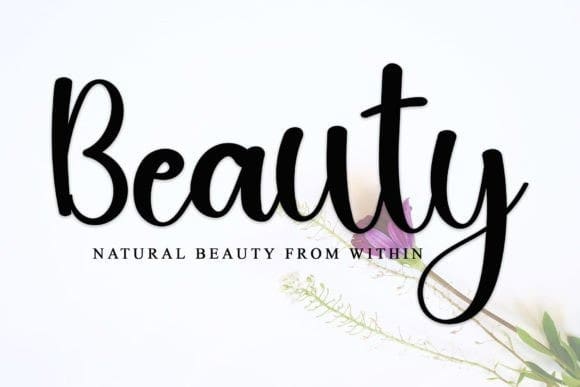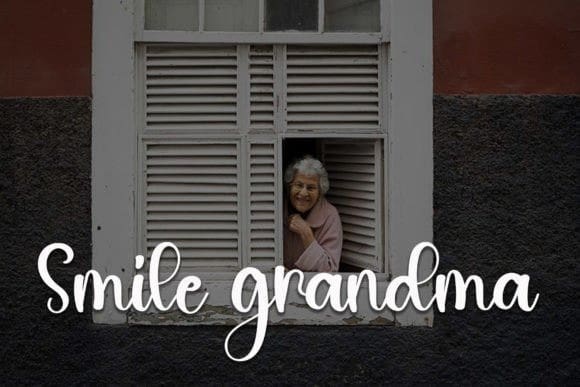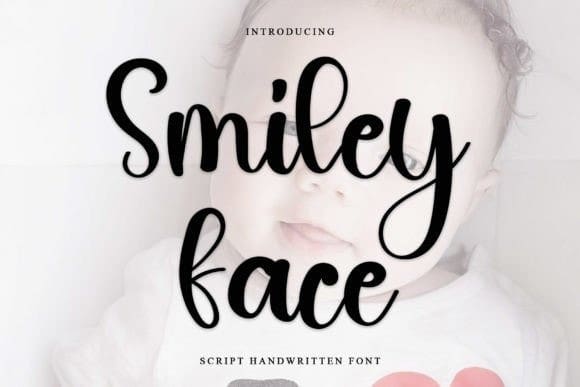
Smiley Face Font
Smiley Face Font is a neat and beautiful handwritten font described by an elegant touch, perfect for your favorite projects. Fall in love with its incredibly distinct and timeless style, and use it to create spectacular designs!